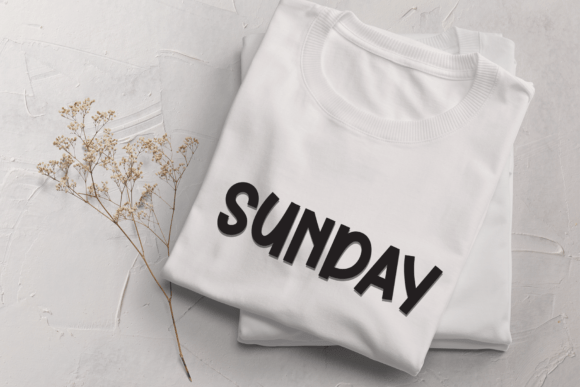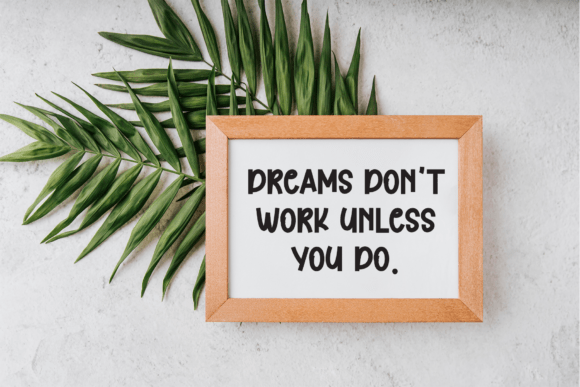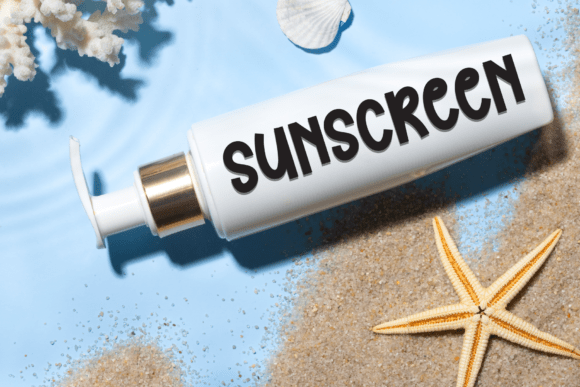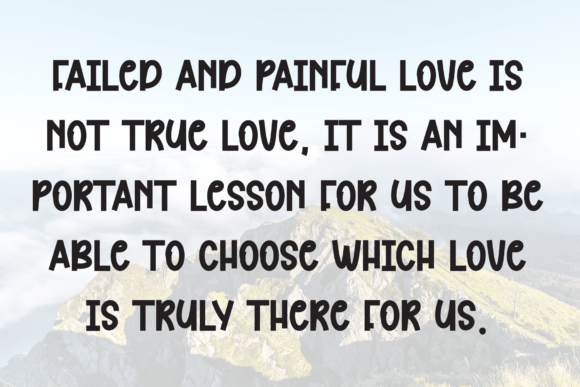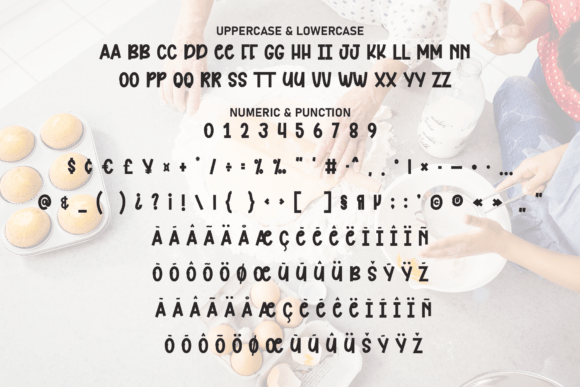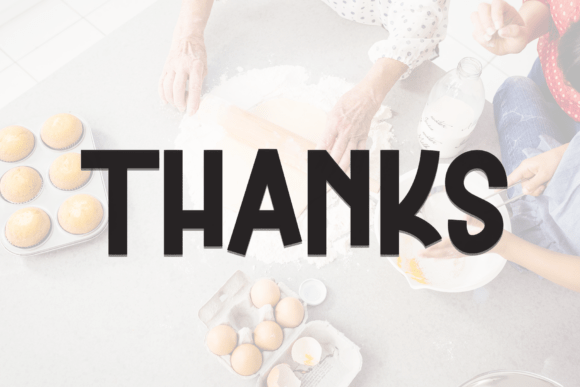
The Whimsical World of Bread Baking Font
Have you ever been in the midst of crafting a design project, only to find yourself stuck on one crucial element: the perfect font? I recall a particularly frustrating experience while working on a wedding invitation project. My client wanted a font that was both playful and elegant, but I just couldn’t seem to find the right fit. That was until I stumbled upon the charming Bread Baking Font. In this article, we’ll dive into the delightful world of this handwritten display font and explore its many uses, features, and applications.
A Personal Encounter with Bread Baking Font
As I began to experiment with Bread Baking Font, I was immediately captivated by its whimsical allure. The font’s delightful confluence of endearing charm and contemporary flair makes it an excellent choice for a wide range of design projects. From wedding invitations that inspire excitement to cards that spread joy, Bread Baking Font adds a fun touch to any design, transforming even the simplest of messages into a deeply personal and inviting experience.
So, what makes Bread Baking Font so special? Let’s take a closer look at its features and limitations.
- ✨ Unique and charming handwritten style
- 🎉 Extensive character set, including glyphs and stylistic alternates
- 💕 Perfect for designs that require a touch of playfulness and whimsy
- 🤔 May not be suitable for very formal or corporate designs
- ⚠️ Some characters may require manual kerning for optimal results
The Backstory of Bread Baking Font
Bread Baking Font was designed with the intention of capturing the whimsical and playful spirit of baking. The font’s creator wanted to create a font that would evoke the feeling of warmth and comfort associated with freshly baked bread. The result is a font that is both charming and inviting, perfect for designs that require a touch of personality.
Q: What is the best way to use Bread Baking Font?
A: Bread Baking Font is versatile and can be used for a wide range of design projects, from wedding invitations to social media graphics. Experiment with different font sizes, styles, and OpenType features to achieve the desired look.